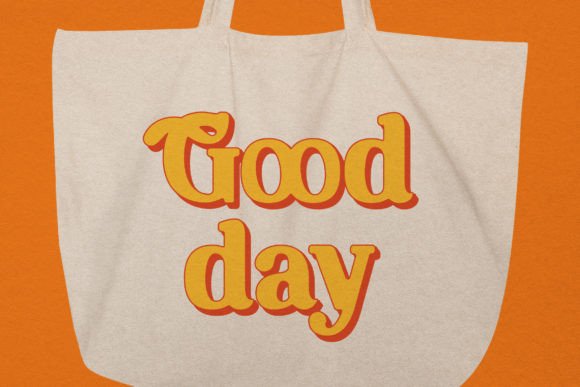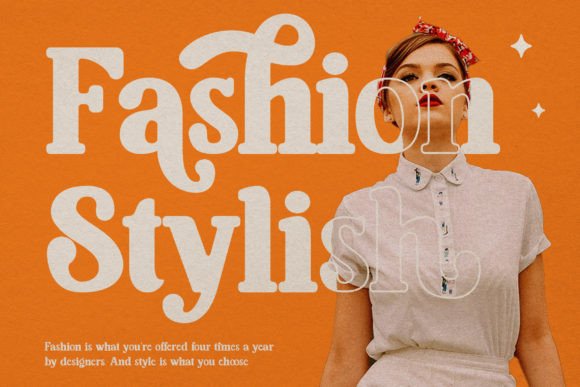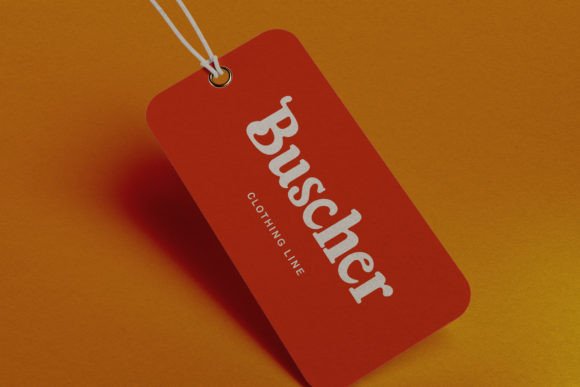
Introduction to Radion Font
Radion is a vintage-inspired typeface that captures the essence of classic typography.
With its bold, chunky serifs and distinctive character shapes, this font is perfect for creating a retro feel in your designs Use it for branding, posters, and other applications that call for a touch of nostalgia and old-school charm.